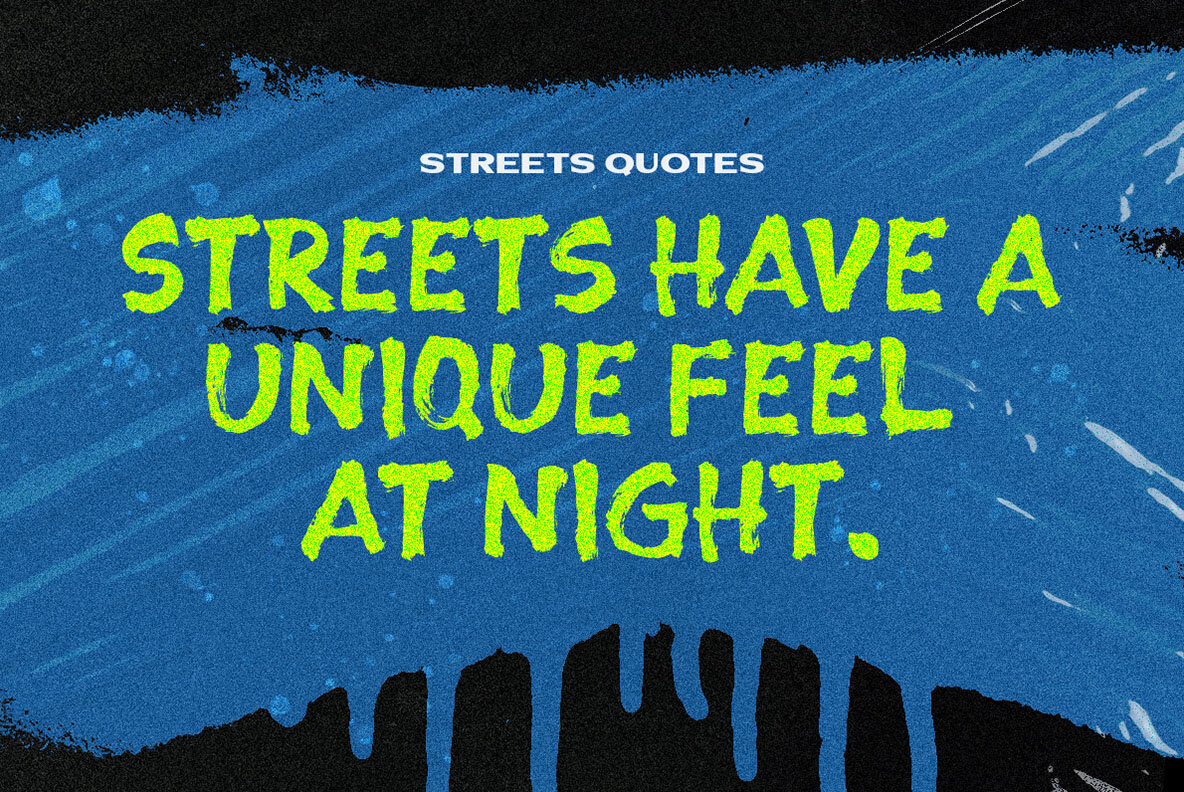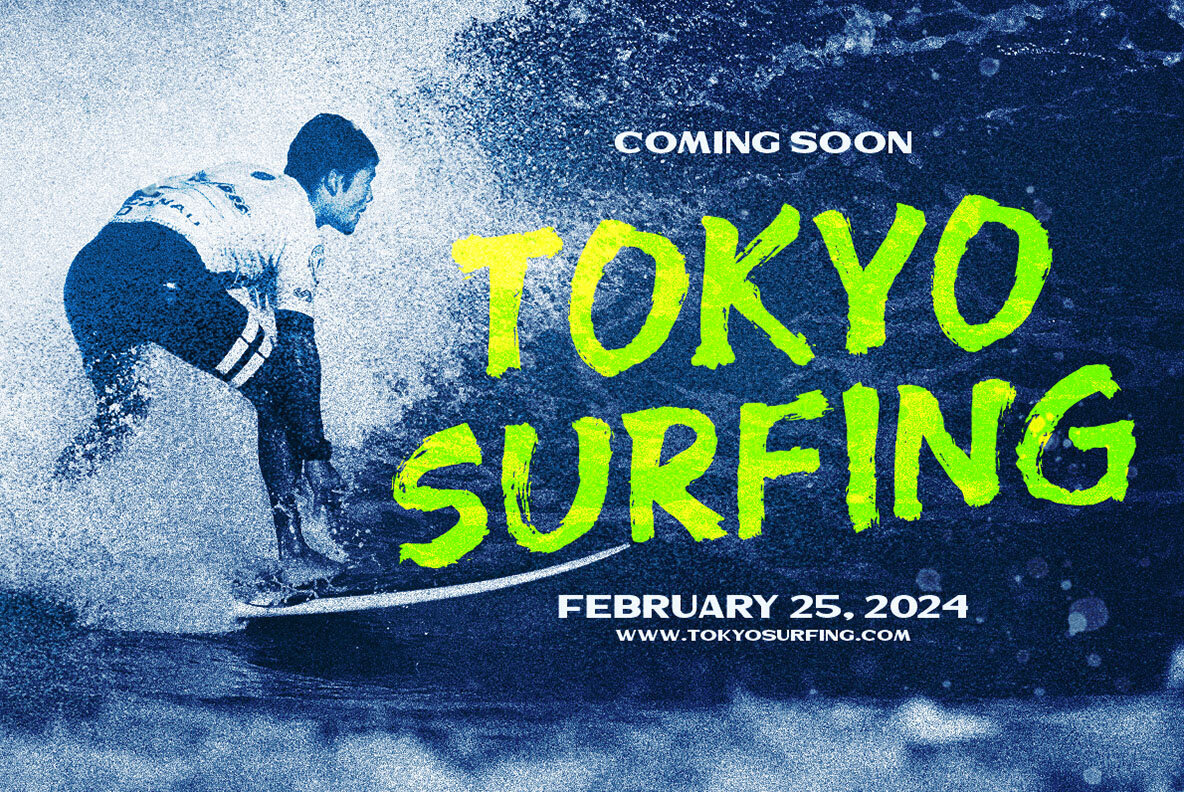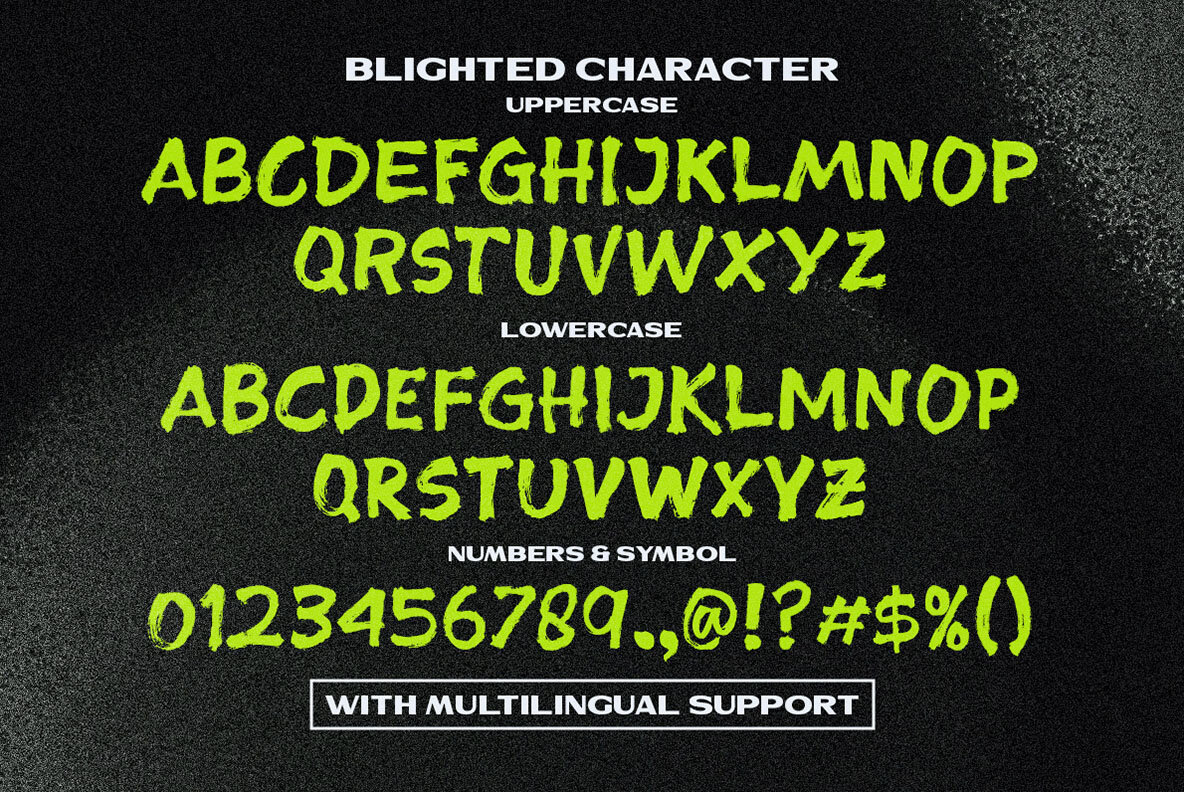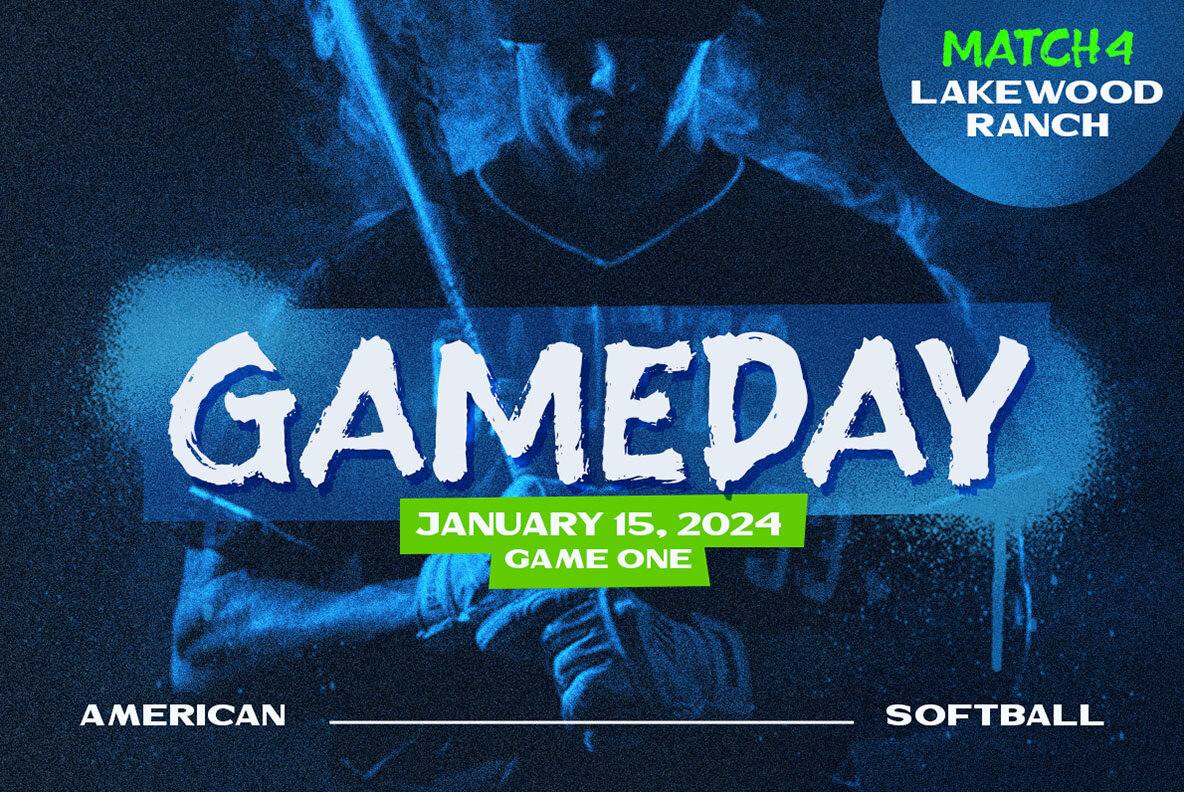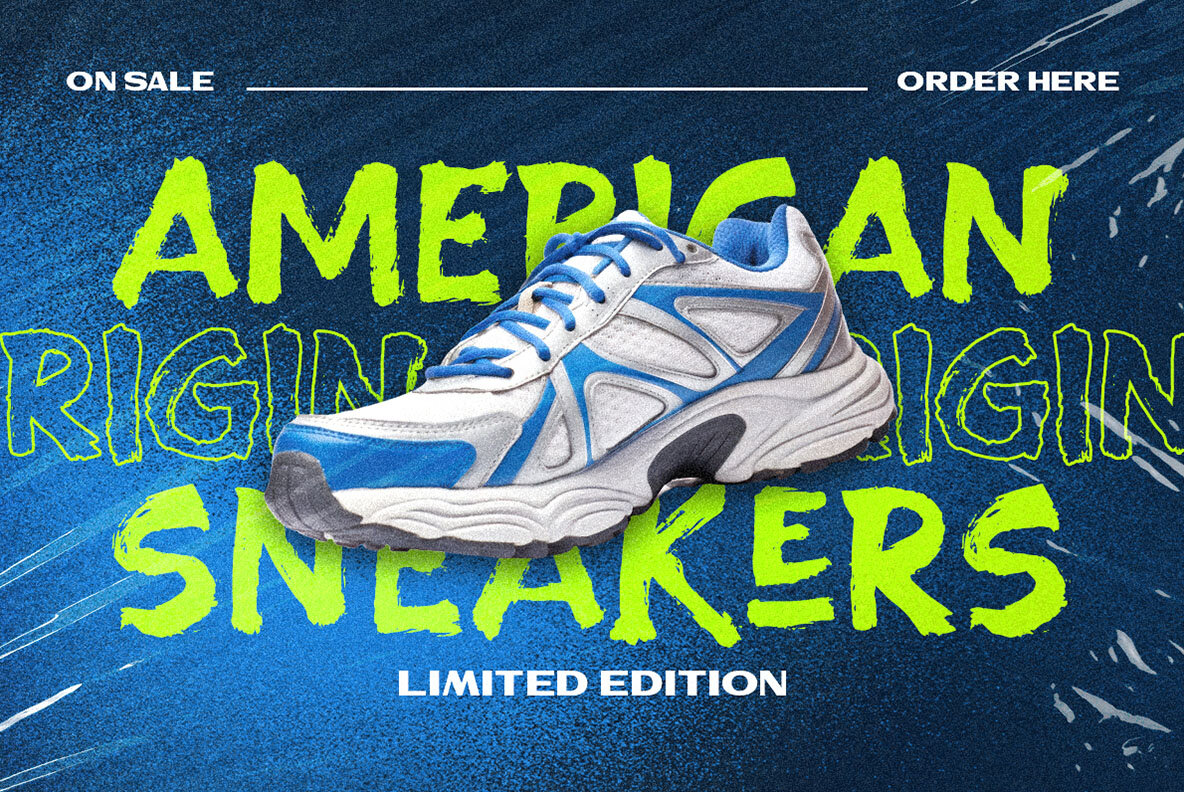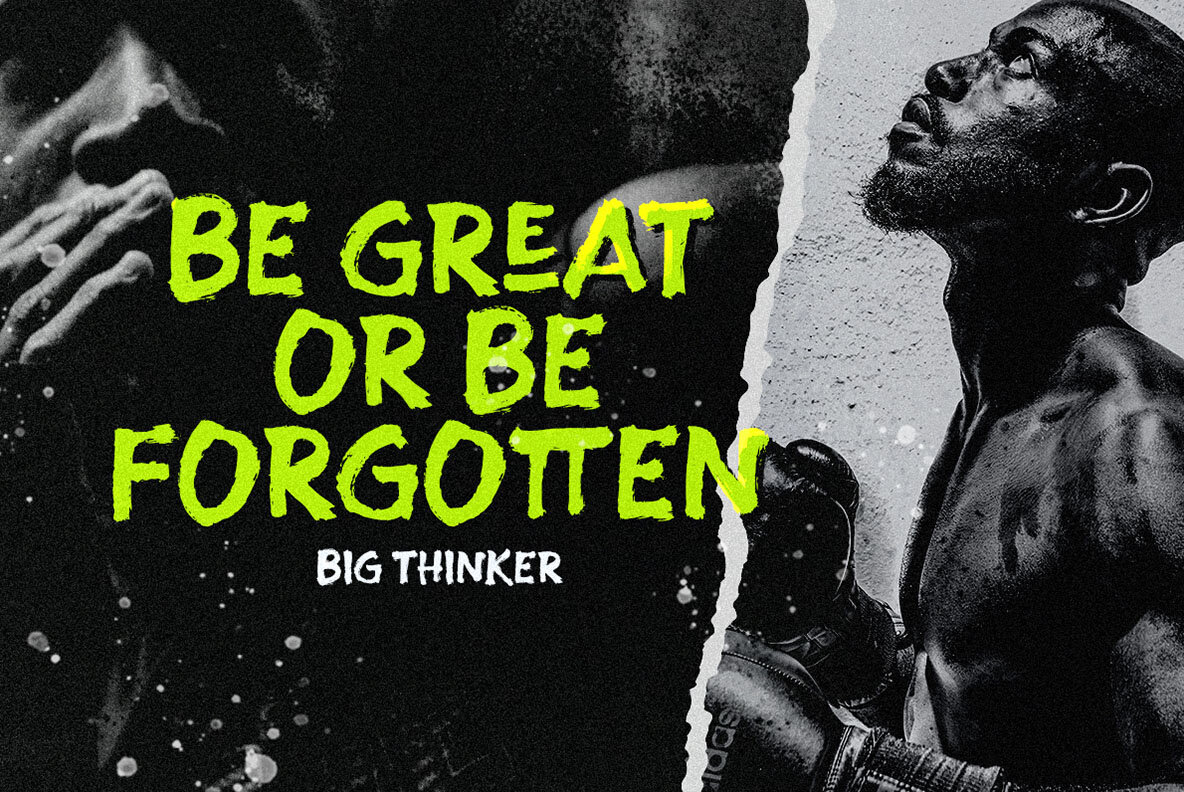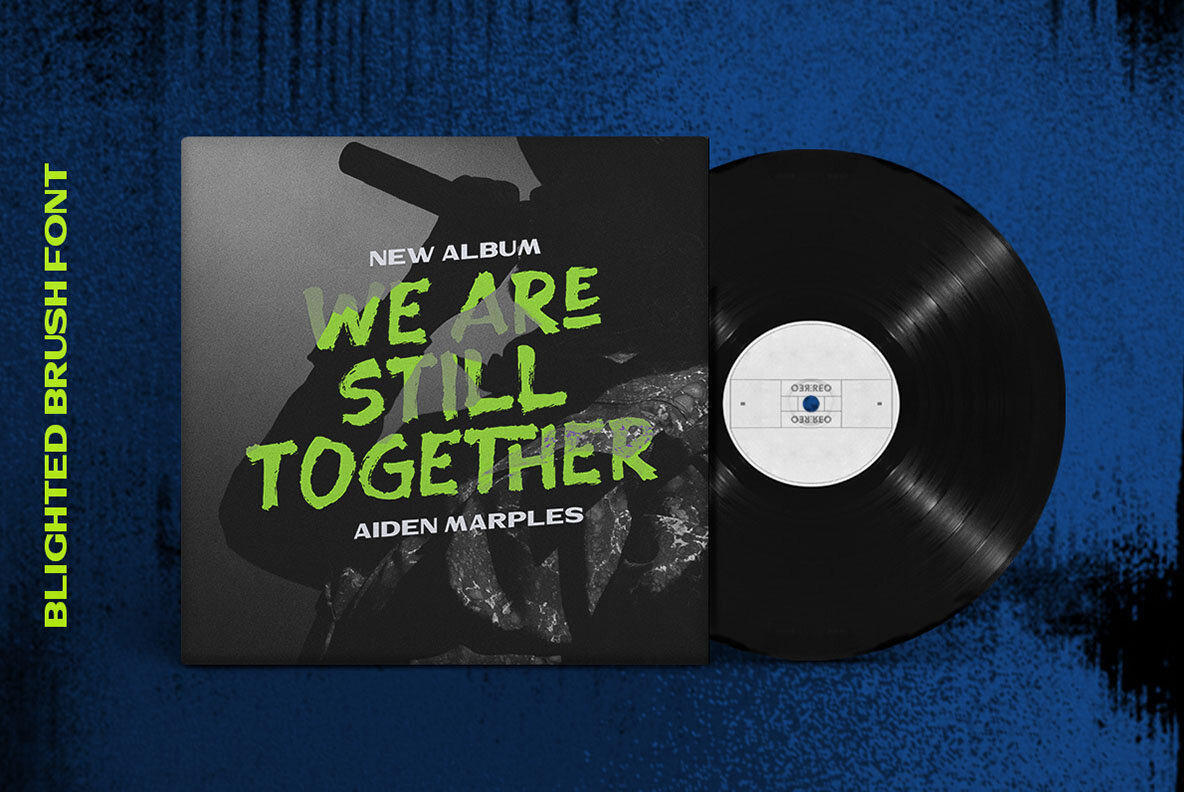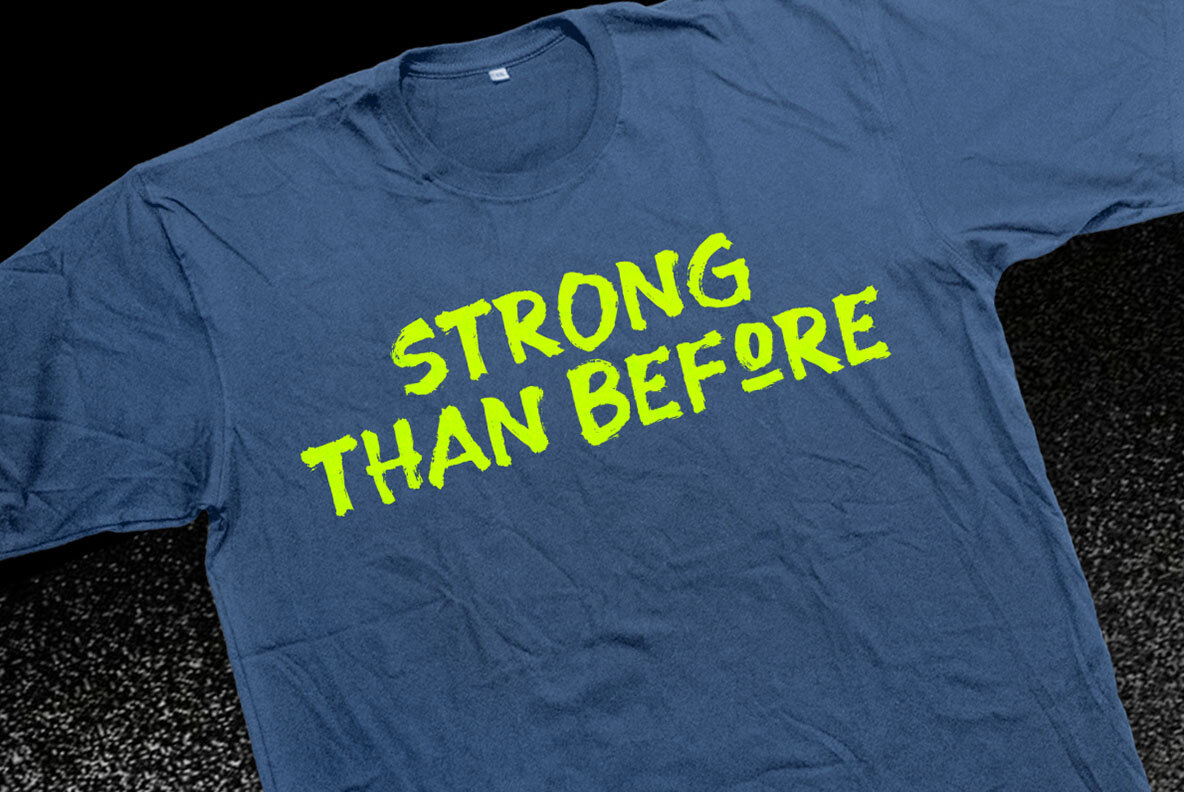
Blighted Brush Font
Blighted Brush Regular
Blighted Brush stands out as a hand-drawn brush font, embodying an organic freestyle texture. Ideal for headlines, displays, or logotypes, this font offers a unique touch for magazines, books, greeting and wedding cards, packaging, and signatures, making it perfect for projects that require a striking appearance. For the best experience, we recommend using a program that supports OpenType features and Glyphs panels, such as Adobe apps and Corel Draw, to fully access all Glyph variations.Blighted Brush: Distinctive Hand-Drawn Style